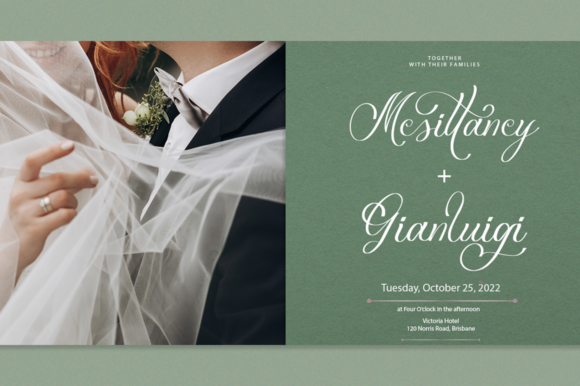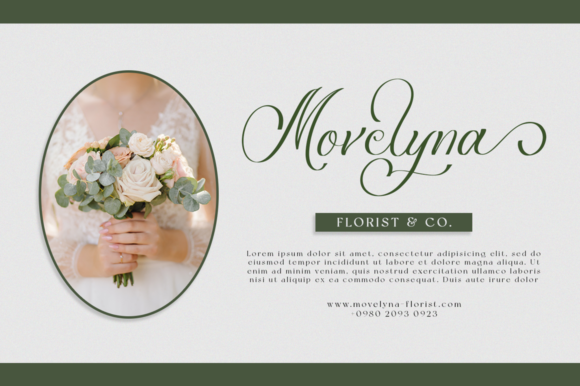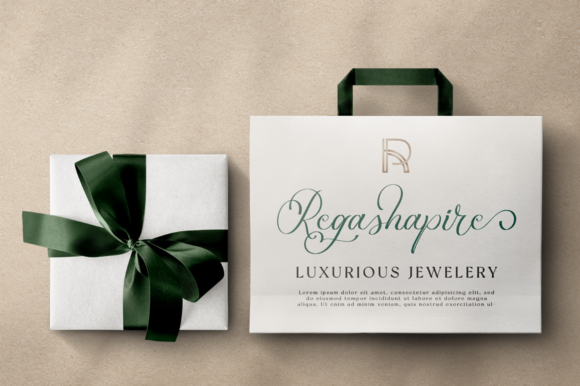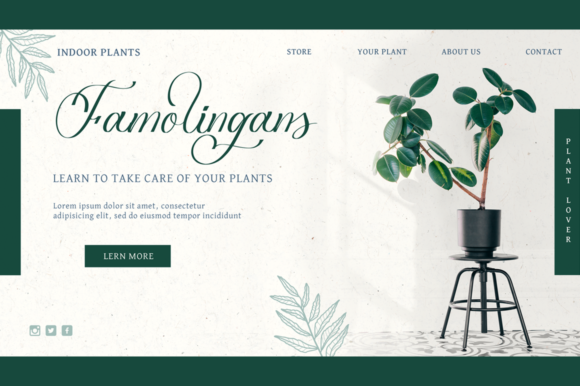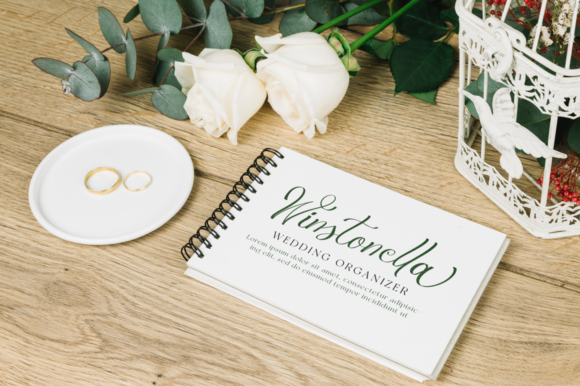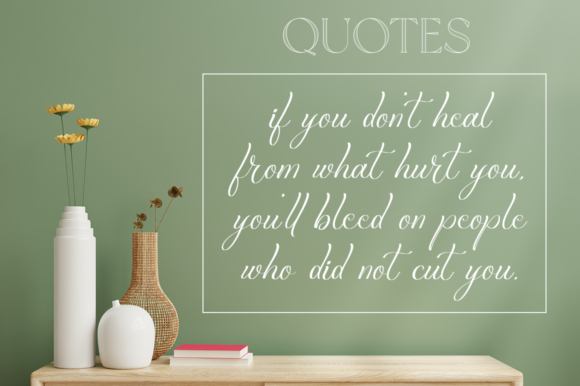
Aurelyna Font: Elevate Your Designs with Elegance and Charm
In the world of typography, a font can make or break a design. For those seeking an elegant and charming touch, Aurelyna Font is an exceptional choice. This beautifully crafted handwritten font is perfect for designers and crafters looking to add a personalized and sophisticated feel to their projects.
The Beauty of Aurelyna Font
Aurelyna Font is an elegant handwritten font that exudes charm and refinement. Its flowing lines and delicate curves make it an ideal choice for designs that require a touch of sophistication. Whether you’re working on wedding invitations, thank you cards, quotes, greeting cards, logos, or business cards, Aurelyna Font is sure to impress.
Aurelyna Font’s versatility makes it suitable for a wide range of design projects. Here are some ideas to get you started:
- Wedding Invitations: Create stunning wedding invitations that set the tone for a memorable and elegant celebration.
- Thank You Cards: Express gratitude with beautifully designed thank you cards that showcase your thoughtfulness.
- Quotes: Add a touch of elegance to inspirational quotes, making them perfect for social media, posters, or wall art.
- Greeting Cards: Design personalized greeting cards for special occasions, such as birthdays, anniversaries, or holidays.
- Logos: Create a lasting impression with a custom logo that incorporates Aurelyna Font, perfect for businesses, events, or products.
- Business Cards: Elevate your professional image with elegant business cards that feature Aurelyna Font.
Aurelyna Font is PUA (Private Use Area) encoded, making it easy to access all the glyphs and swashes. This feature allows designers to explore the font’s full potential, creating unique and customized designs with ease. With PUA encoding, you can:
- Access a wide range of glyphs and swashes
- Create custom ligatures and combinations
- Easily switch between different font styles
Why Choose Aurelyna Font?
Aurelyna Font stands out from other fonts due to its exceptional design, versatility, and ease of use. Here are some reasons why designers and crafters love Aurelyna Font:
- Elegant and Charming: Aurelyna Font adds a touch of sophistication and charm to any design.
- Highly Versatile: Suitable for a wide range of design projects, from wedding invitations to logos and business cards.
- PUA Encoded: Easy access to glyphs and swashes for customized designs.
Tips for Using Aurelyna Font
To get the most out of Aurelyna Font, here are some tips to keep in mind:
- Experiment with Ligatures: Take advantage of Aurelyna Font’s ligatures to create unique and flowing text.
- Mix and Match: Combine Aurelyna Font with other fonts to create visually appealing contrast.
- Play with Swashes: Use Aurelyna Font’s swashes to add a touch of elegance and sophistication to your designs.
Aurelyna Font is an exceptional choice for designers and crafters seeking an elegant and charming font for their projects. With its versatility, PUA encoding, and ease of use, Aurelyna Font is sure to elevate your designs and leave a lasting impression. Whether you’re working on wedding invitations, logos, or business cards, Aurelyna Font is the perfect addition to your typography collection.